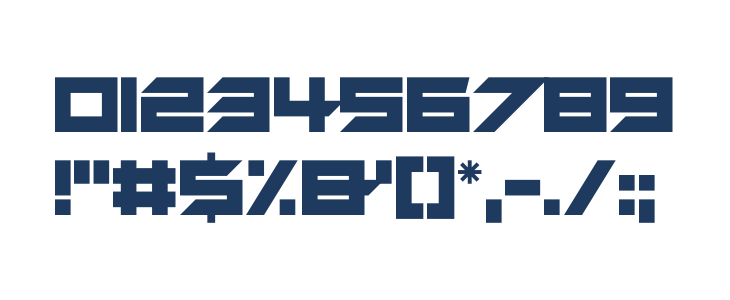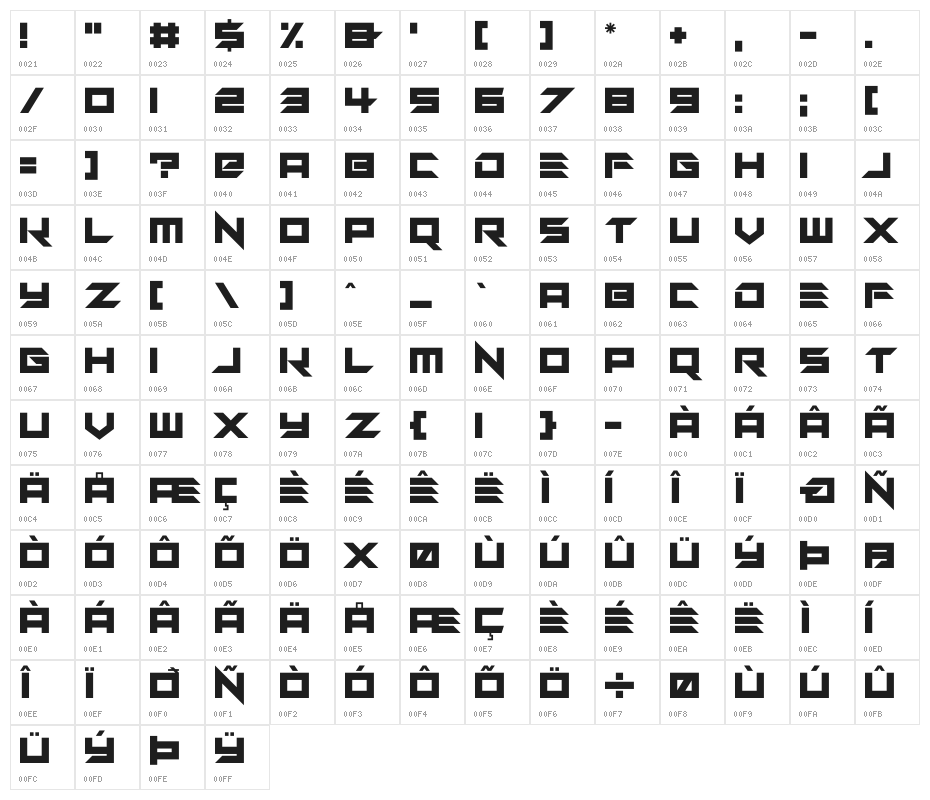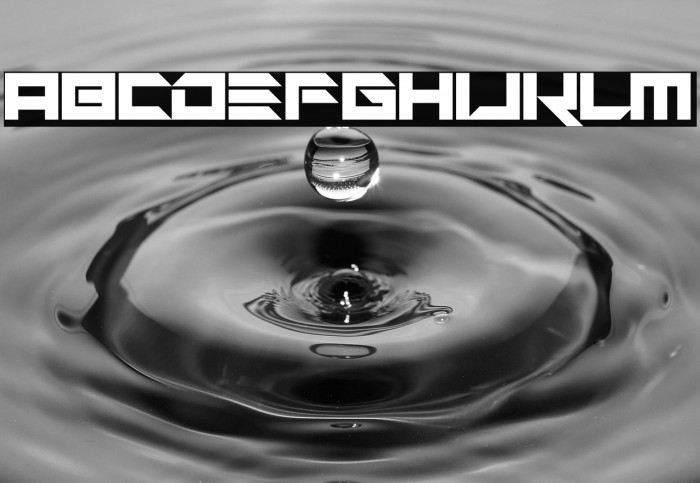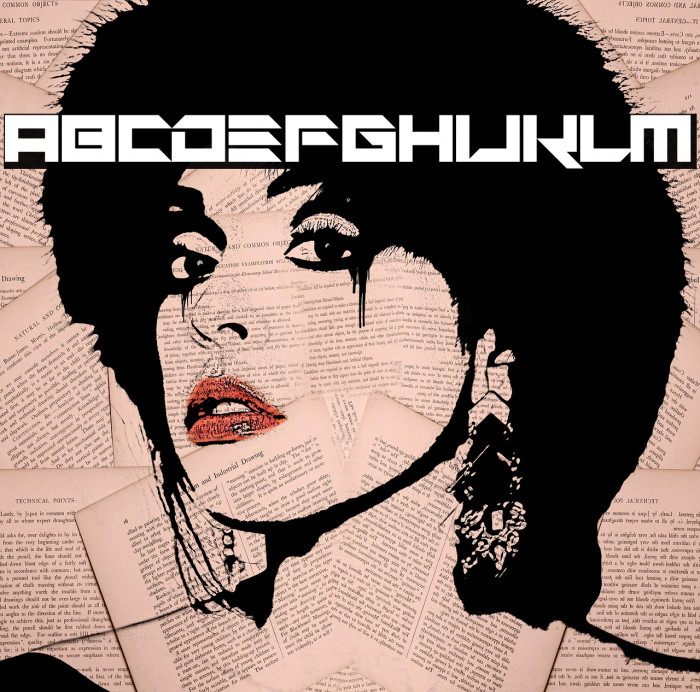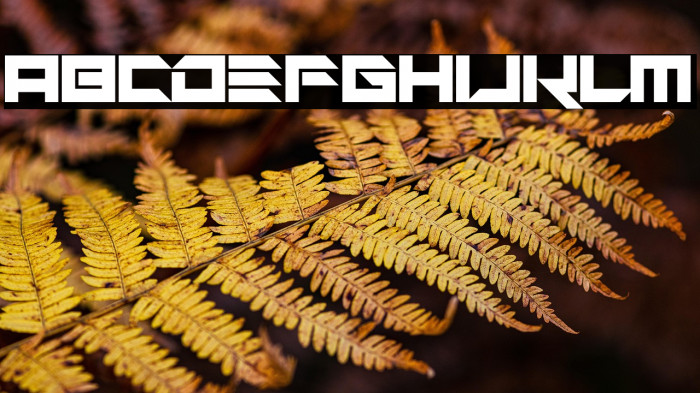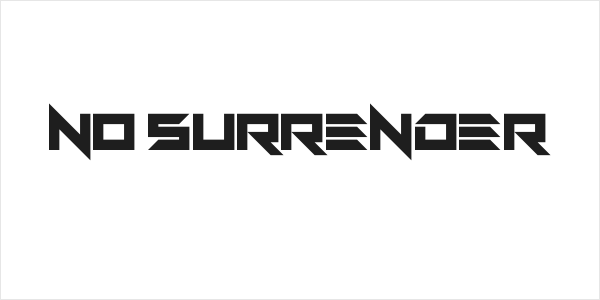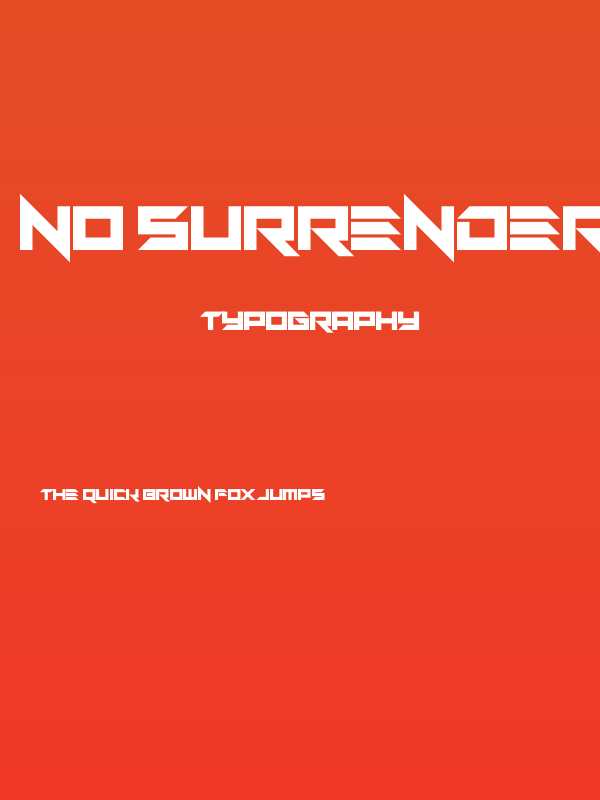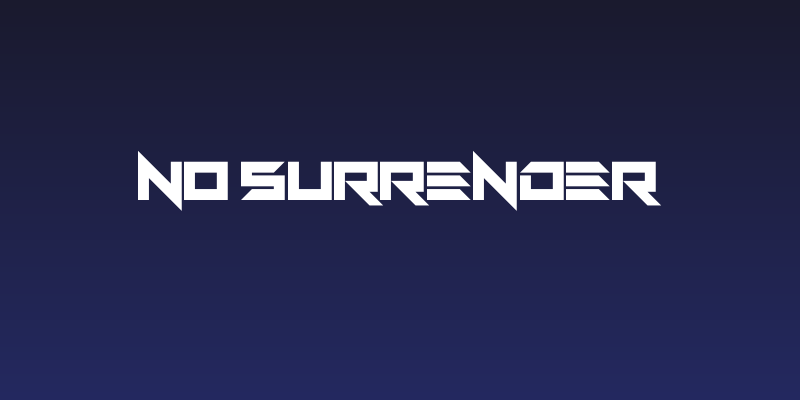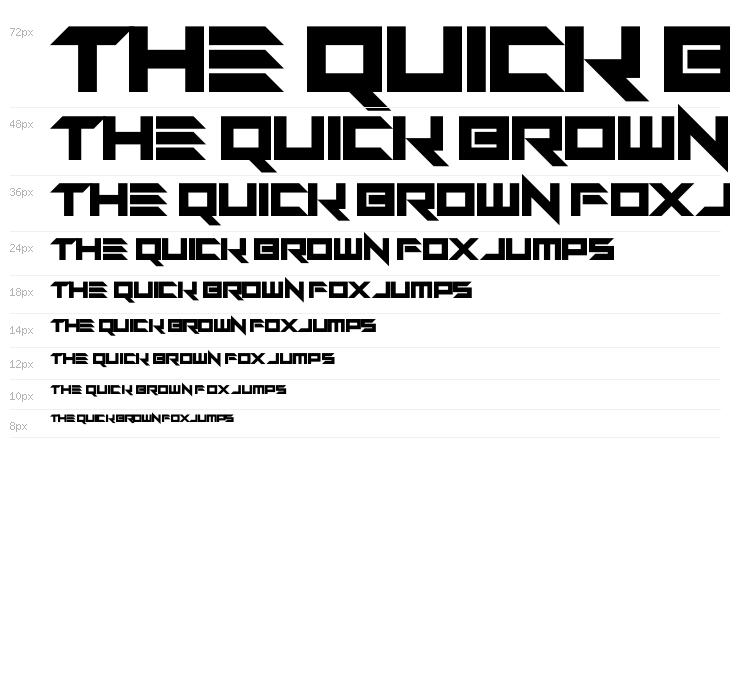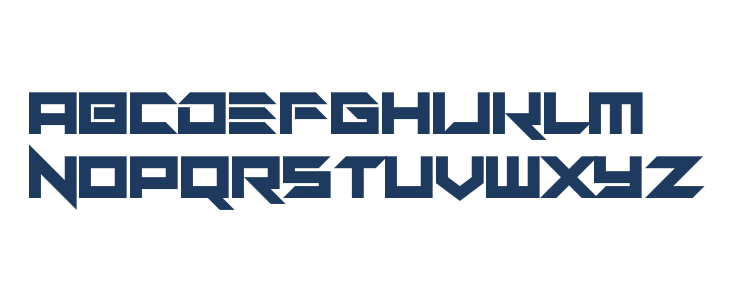
No Surrender Font
No Surrender Description
This font features a bold, geometric design with sharp angles and a futuristic aesthetic. The characters are constructed with straight lines and angular cuts, giving a sense of movement and dynamism. The uppercase letters are particularly striking, with unique shapes that make each character stand out. The numbers and special characters maintain this bold, angular style, ensuring consistency across the font. This design is highly stylized, making it ideal for projects that require a modern and edgy look.
| Overall Style | Futuristic, Edgy |
| Proposed Projects | Ideal for sci-fi themed designs, video game titles, posters, and branding that requires a modern, edgy look. |